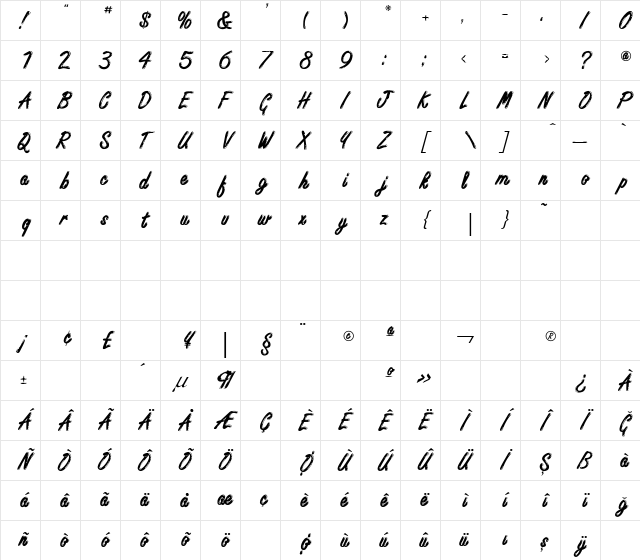
TR Freestyle Script Bold Free Font
TR Freestyle Script Bold
Design Context for TR Freestyle Script
TR Freestyle Script flows with the natural rhythm of handwritten lettering, making it ideal for designs that call for warmth and personal expression. Its bold stroke weight gives it real presence on the page.
Font Pairing: Combine TR Freestyle Script with a simple geometric sans for maximum contrast - the tension between flowing curves and clean structure is a classic typographic pairing.
Pro Tip: Use TR Freestyle Script for short runs of text - names, titles, or taglines. Extended body copy in script faces tires the eye quickly.